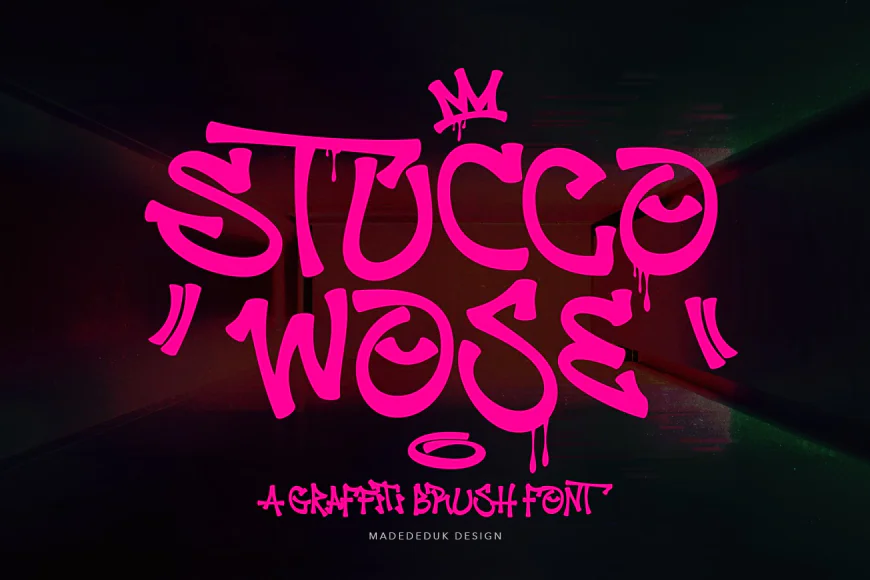
Stucco Wise is a graffiti font inspired by the 90s hip hop style. Clear and unique, you can explore and combine, creating a rhythm for comfortable reading.